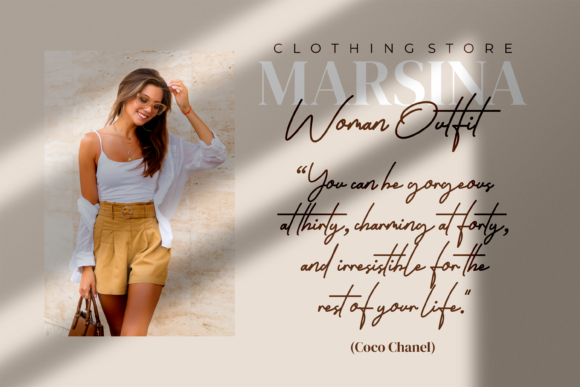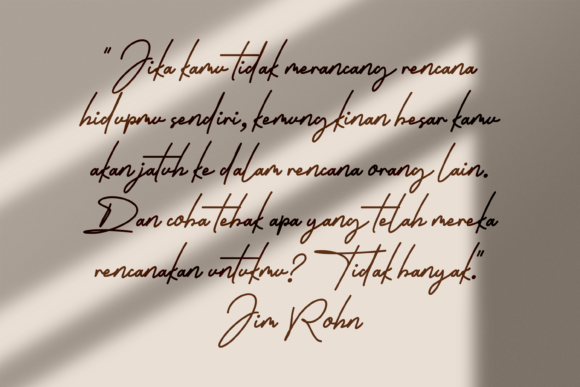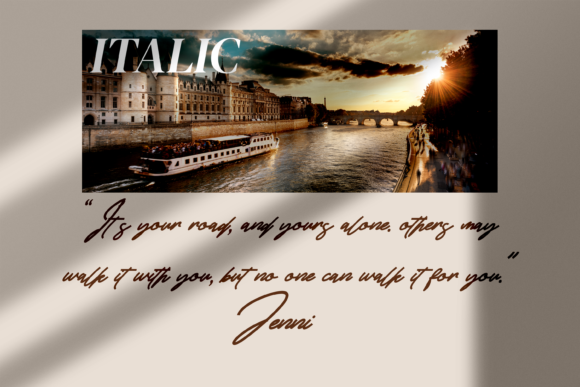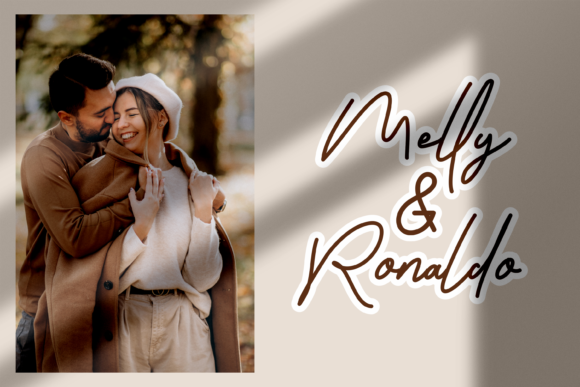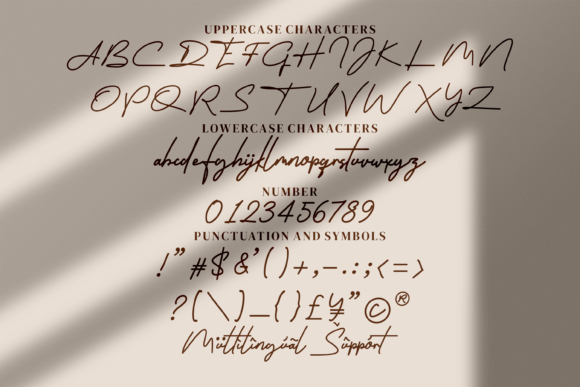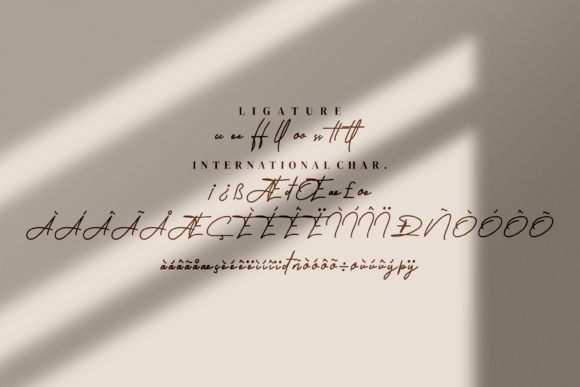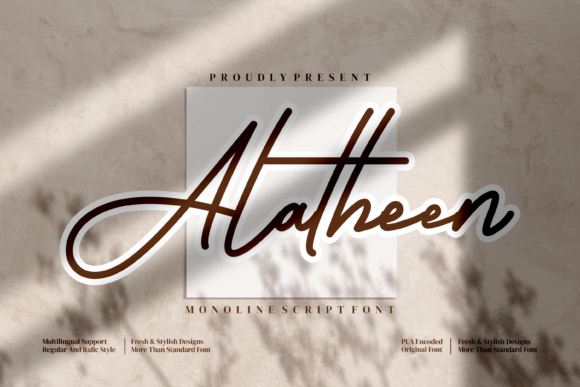
Introducing Alatheen Font: The Elegant and Dainty Handwritten Font
Are you a designer or crafter looking for a unique and elegant font to elevate your creative projects? Look no further than Alatheen Font, a beautiful handwritten font that features sweet and delicate swashes. With its original look and versatility, Alatheen is perfect for a wide range of crafty ideas, from letterheads and titles to stationery and more.
What Makes Alatheen Font Special?
Alatheen Font is a one-of-a-kind font that stands out from the crowd with its elegant and dainty design. The font features sweet and delicate swashes that add a touch of sophistication and refinement to any project. Whether you’re creating a formal letterhead or a playful stationery set, Alatheen is sure to impress.
Key Features of Alatheen Font
- Elegant and Dainty Design: Alatheen Font boasts a beautiful, handwritten design that’s perfect for creating elegant and refined projects.
- Sweet and Delicate Swashes: The font features sweet and delicate swashes that add a touch of sophistication and refinement to any project.
- Versatile: Alatheen is perfect for a wide range of crafty ideas, from letterheads and titles to stationery and more.
- Original Look: With its unique design, Alatheen is sure to make your projects stand out from the crowd.
Uses for Alatheen Font
Alatheen Font is perfect for a variety of creative projects, including:
- Letterheads: Create elegant and professional letterheads that make a lasting impression.
- Titles: Use Alatheen to create beautiful and eye-catching titles for your projects.
- Stationery: Design beautiful and unique stationery sets that showcase your personality and style.
- Branding: Use Alatheen to create a cohesive and elegant brand identity that sets you apart from the competition.
Why Designers and Crafters Love Alatheen Font
Designers and crafters love Alatheen Font for its unique and elegant design. The font is perfect for creating a wide range of projects, from formal and professional to playful and whimsical. With Alatheen, you can add a touch of sophistication and refinement to any project, making it perfect for designers and crafters who want to create something truly special.
Tips for Using Alatheen Font
Here are a few tips for using Alatheen Font in your projects:
- Experiment with Different Sizes: Alatheen Font looks great in a variety of sizes, from large and bold to small and delicate.
- Pair with Other Fonts: Try pairing Alatheen with other fonts to create a unique and interesting look.
- Use Swashes Wisely: The swashes in Alatheen Font are a beautiful feature, but use them wisely to avoid overwhelming your design.
Alatheen Font is a beautiful and elegant handwritten font that’s perfect for designers and crafters who want to add a touch of sophistication and refinement to their projects. With its unique design, sweet and delicate swashes, and versatility, Alatheen is sure to become a favorite font in your collection. So why wait? Try Alatheen Font today and see the difference it can make in your creative projects!